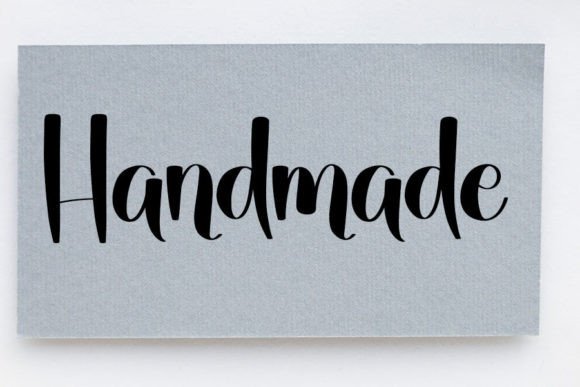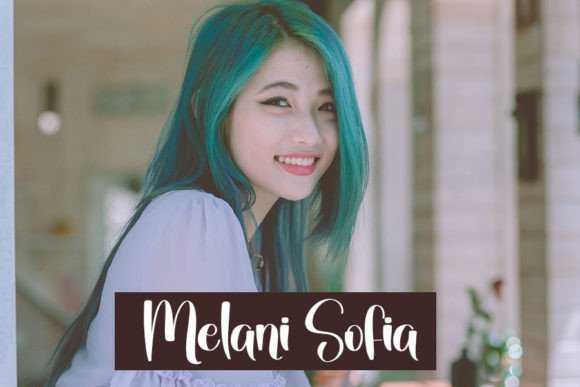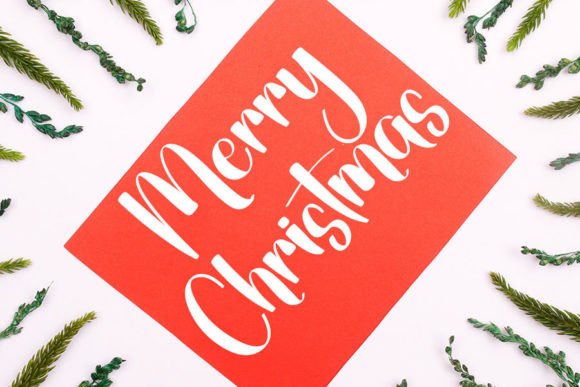
About Sometime Font
Sometime Font is a delicate handwritten typeface thoughtfully designed to bring a cool and unique style to your creative work. With refined strokes and charming character, this font is ideal for a variety of uses, including personal letters, wedding invitations, product packaging, titles, and more. Sometime adds a fresh and elegant touch, helping your designs stand out with personality.
Delicate and Unique Design
Sometime features soft, flowing letterforms that balance subtlety with distinctiveness. Its handwritten style adds warmth and creativity while maintaining excellent readability, making it suitable for both casual and formal projects.
Ideal Uses for Sometime Font
This versatile font works well for:
Personal letters and notes
Wedding invitations and event stationery
Food product packaging and labels
Titles and headers for print or digital media
Branding and marketing materials
Sometime adapts seamlessly to a wide range of creative projects.
Why Choose Sometime Font?
Designers choose Sometime for its:
Delicate and unique handwritten appearance
Clear readability and elegant flow
Versatility across various creative applications
These features make Sometime a practical and stylish font choice.
Add Elegance and Personality to Your Designs
Typography defines the mood of your project. Sometime adds a delicate, unique personality that enhances your design’s charm and appeal. Whether for invitations, packaging, or branding, this font brings warmth and sophistication.
In summary, Sometime Font is a delicate and unique handwritten script perfect for designers seeking an elegant and creative font. Add Sometime to your font library to create memorable and stylish designs.